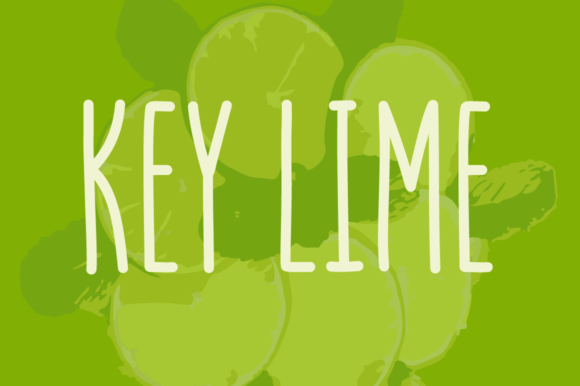
Dive into the realm of zesty citrus refreshment with Key Lime Font, where your designs will radiate the invigorating essence of lime. This delightfully slender sans serif font, crafted by the visionaries at Shaped Fonts, exudes an aura of casual elegance, making it the perfect companion for your creative endeavors.
Indulge in the invigorating charm of Key Lime Font, a sans serif masterpiece, gracefully thin and elegantly tall. Its versatile nature knows no bounds, seamlessly adapting to your design vision. This remarkable font is an essential addition to your creative toolkit, ready to inject a zesty spark of citrus delight into your projects.
With Key Lime Font, simplicity and versatility go hand in hand. Its clean lines and open forms create a crisp, modern aesthetic, effortlessly capturing the attention of your audience. Whether you're designing logos, branding materials, website headers, or social media graphics, Key Lime Font will infuse your designs with a refreshing energy.
Unleash your creativity and embrace the endless possibilities with Key Lime Font. Its exceptional readability makes it an ideal choice for both print and digital media, ensuring your messages are conveyed with clarity and impact. From brochures and flyers to e-books and online articles, Key Lime Font adds a touch of citrusy invigoration to your words.
Immerse yourself in the invigorating spirit of Key Lime Font and experience the zesty difference it brings to your designs. Its unique charm and versatility will instantly elevate your projects, leaving a lasting impression on your audience. Embrace the refreshing allure of Key Lime Font today and embark on a creative journey filled with citrus-inspired brilliance.